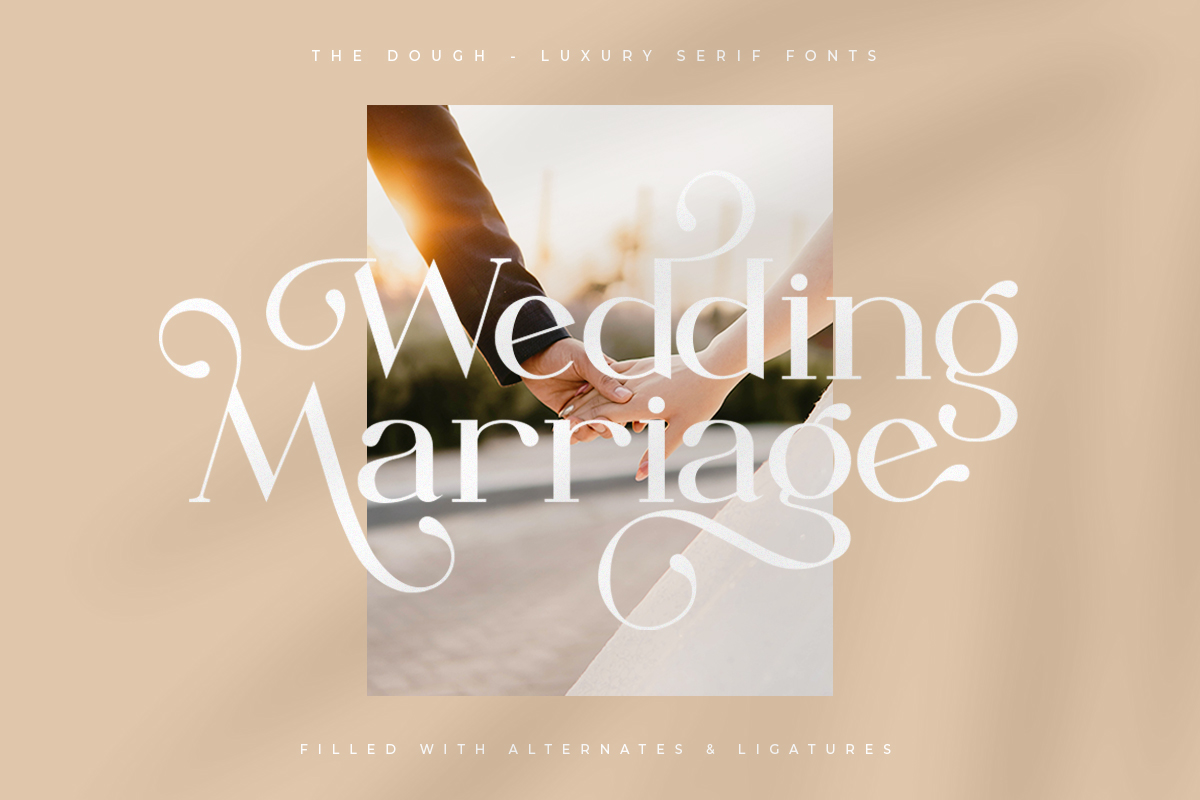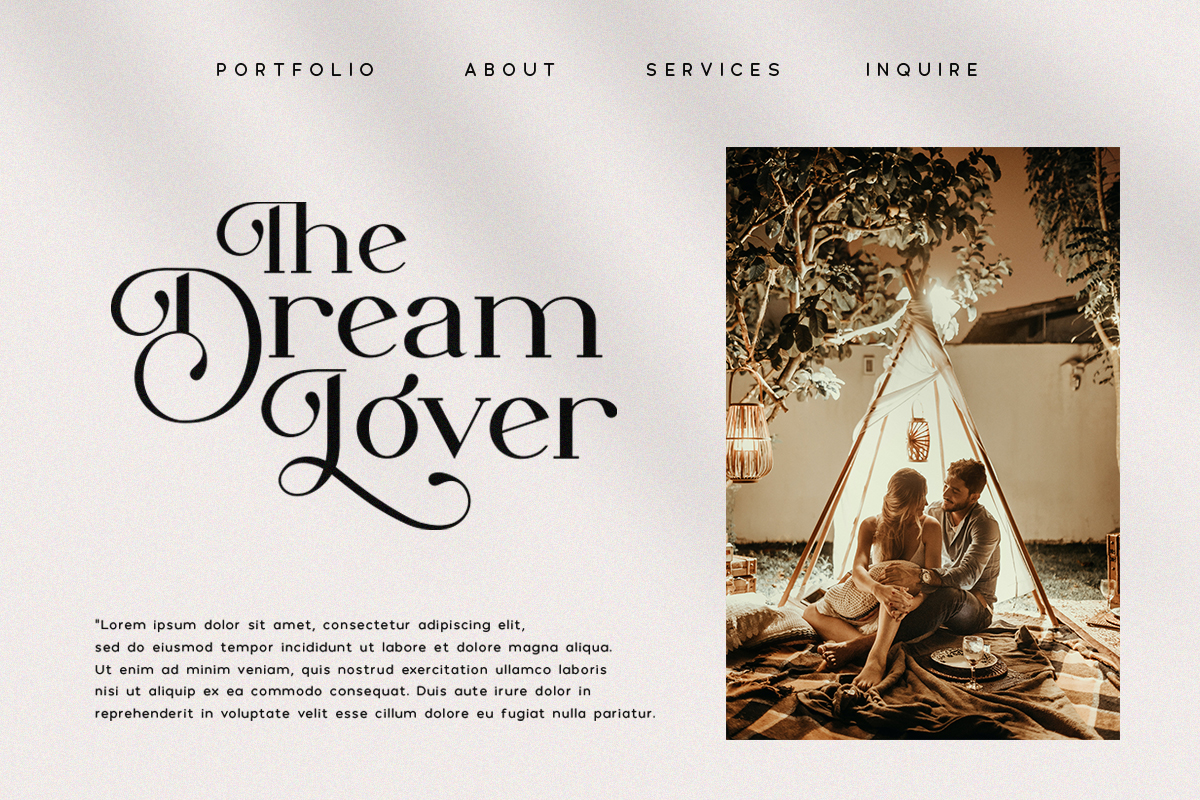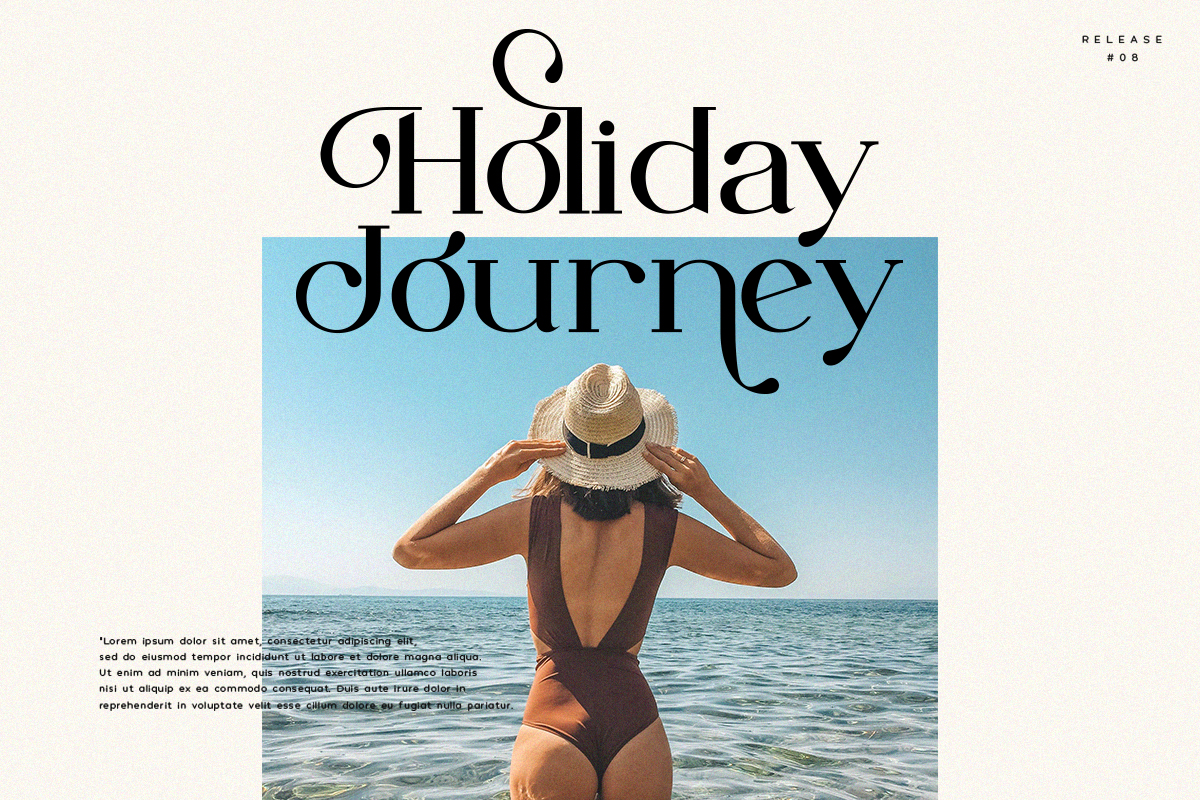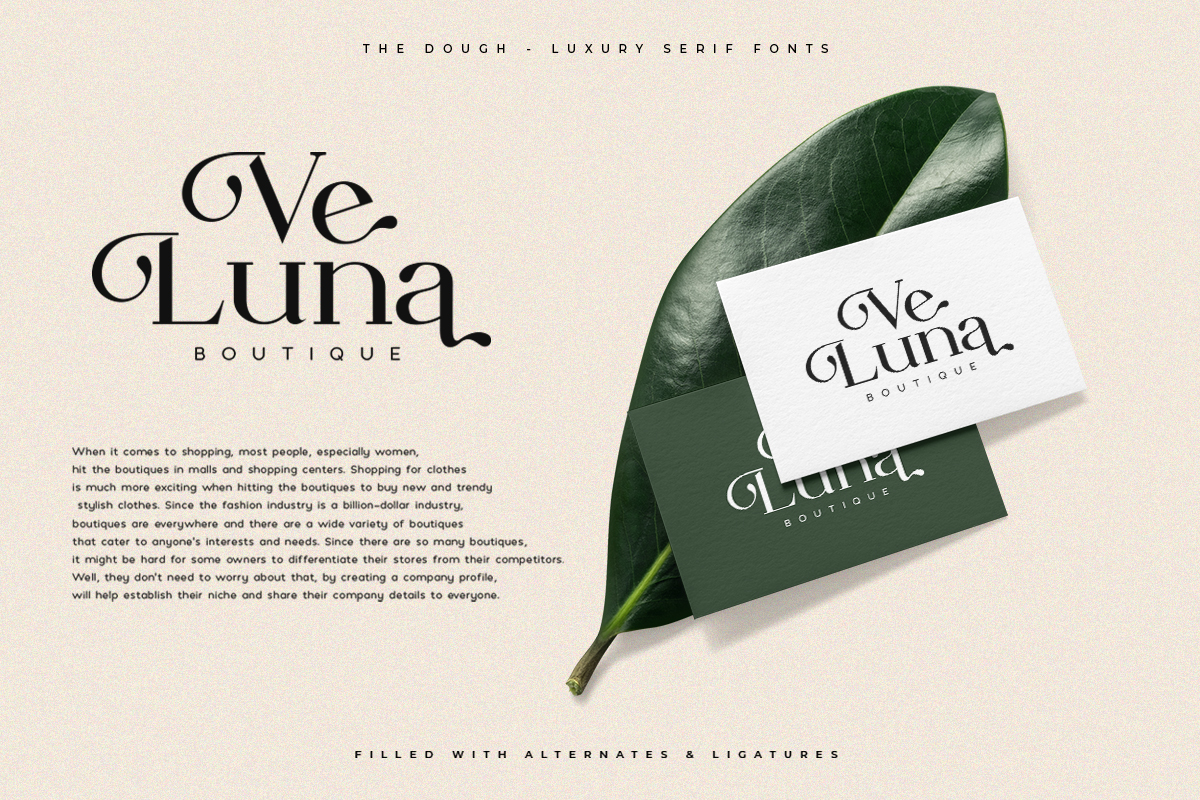
The Dough Font
The Dough Serif Font
This font Is An Luxury Stylish Serif Font Inspired By Expensive Serif Typeface. The lhon Down font is perfect for serious or non-serious design concepts, also suitable for classic retro designs, fashion, pop designs and so on.